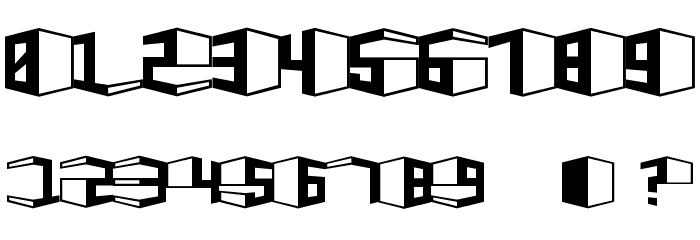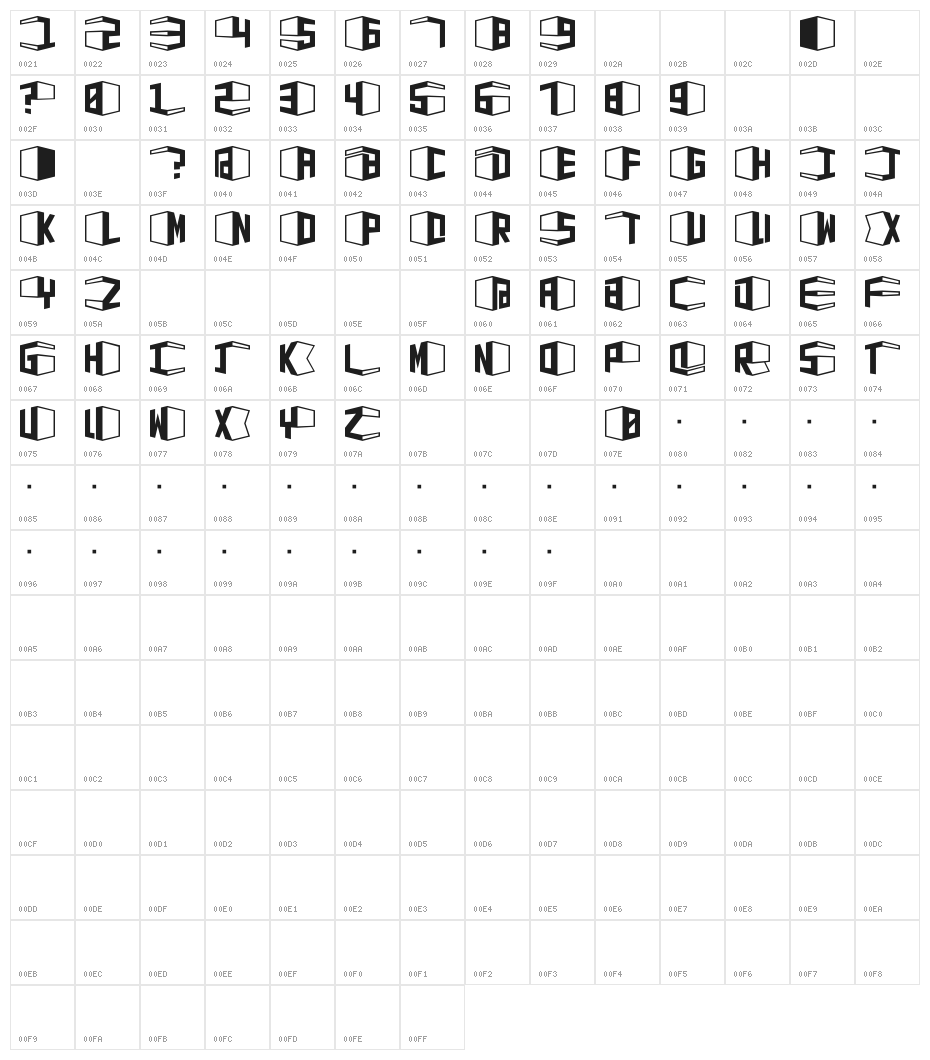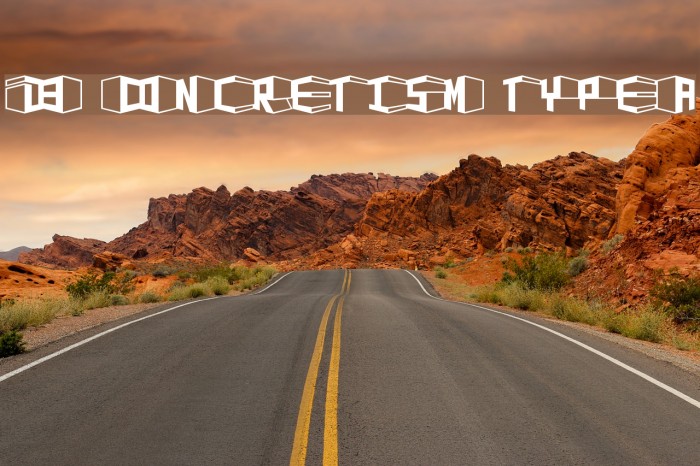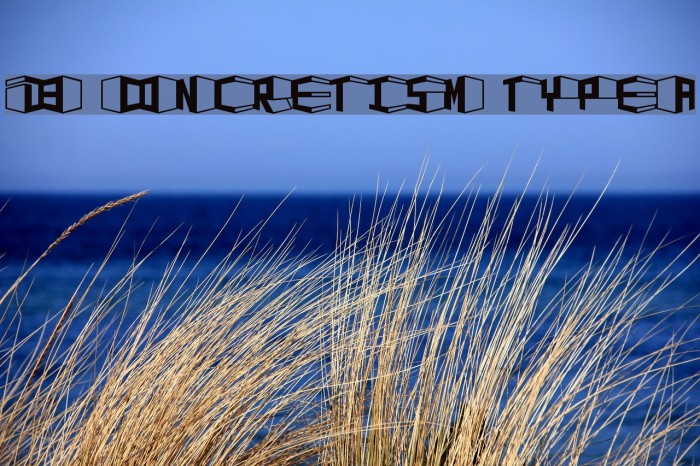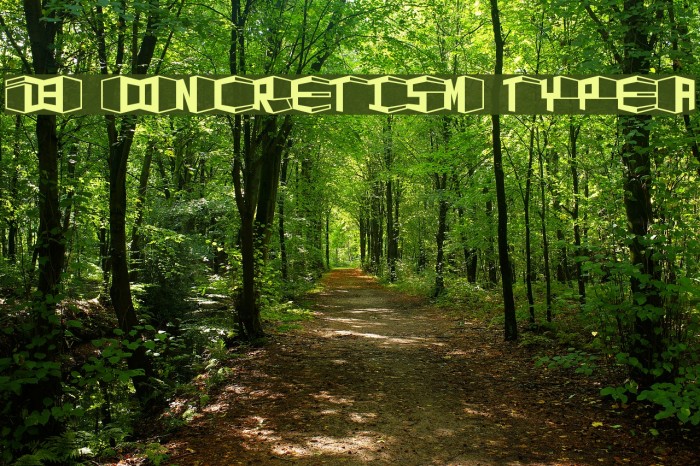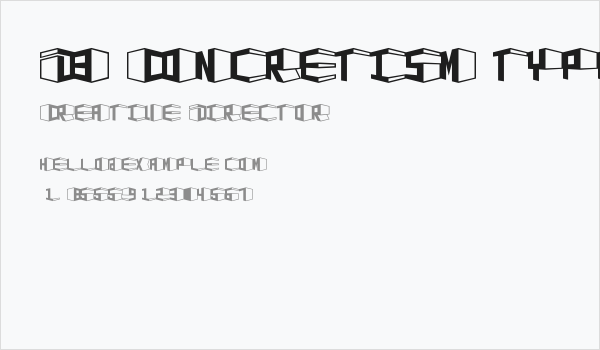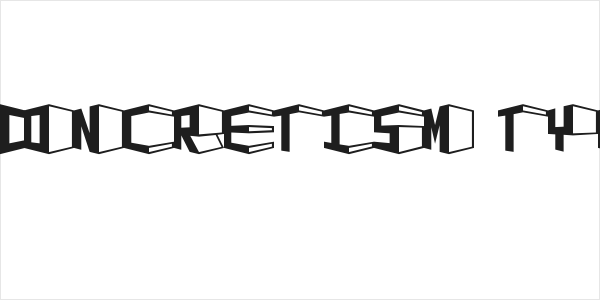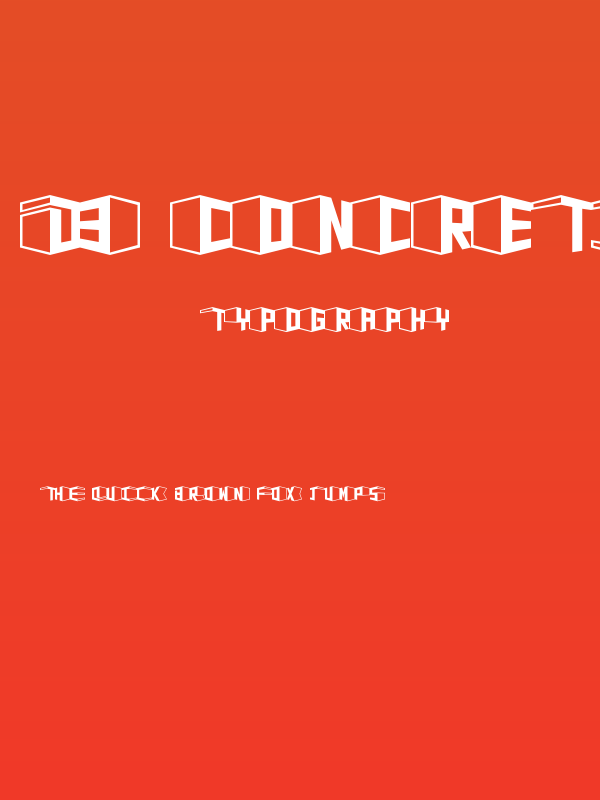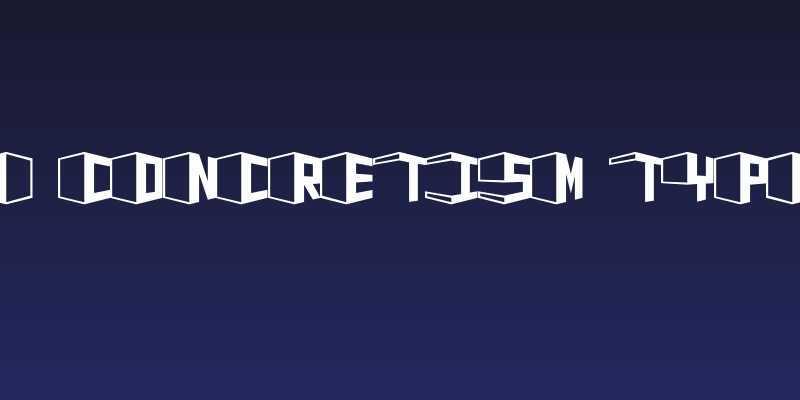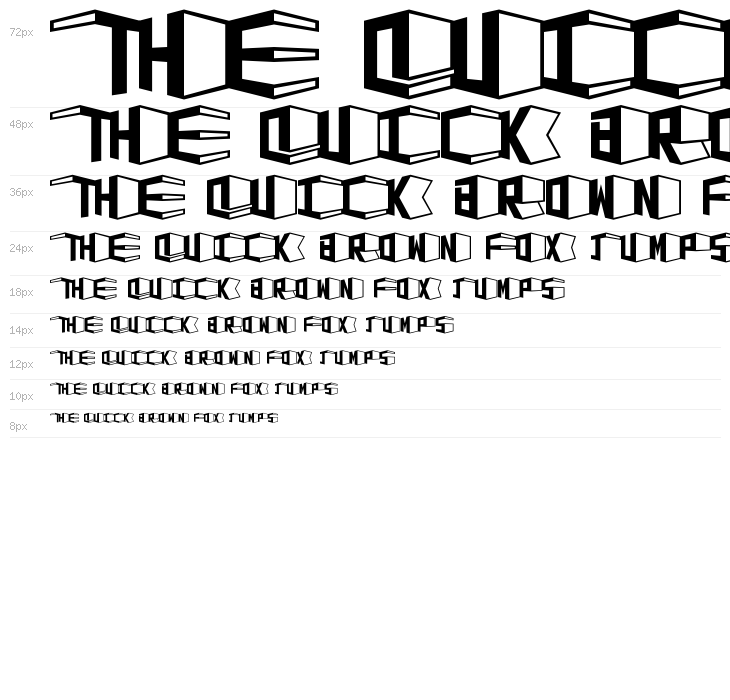
D3 Concretism typeA Font
D3 Concretism typeA Description
This font features a bold, geometric design with a three-dimensional effect, creating a striking visual impact. The characters are constructed with thick lines and angular shapes, giving them a blocky, architectural appearance. The use of shadowing and perspective adds depth and a sense of movement, making the letters appear as if they are emerging from the page. This style is consistent across uppercase letters, lowercase letters, numbers, and special characters, maintaining a cohesive and dynamic look. The font's unique structure is ideal for projects that require a modern and edgy aesthetic.
| Proposed Projects | Ideal for branding, posters, album covers, and any design requiring a modern, edgy look. |